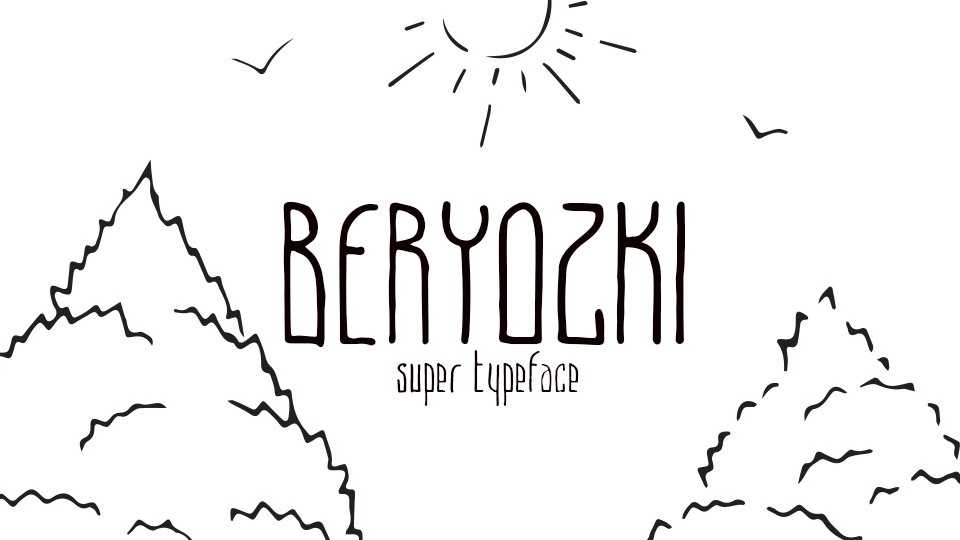
Download Beryozki font, an authentic handwritten font with a condensed style and Latin and Cyrillic languages support. It’s suitable for headlines, social media, quotes, craft designs and other projects with a personal touch.
Designer: Misha Panfilov